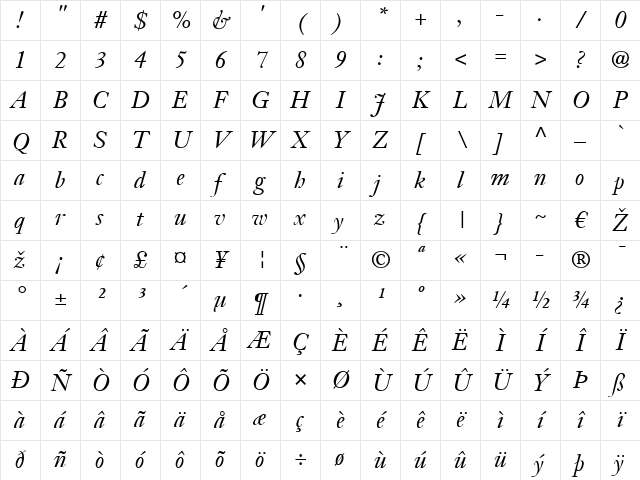
JansonText LT Italic
Complete JansonText LT Italic glyph index. Displaying only characters natively supported by JansonText LT Italic font.
Design Context for JansonText LT
JansonText LT is a composed and adaptable typeface that performs quietly and consistently across a wide range of design contexts. The slanted form adds forward momentum and visual energy. Its slender proportions lend an understated elegance to any composition.
Pro Tip: Use JansonText LT for emphasis, pull quotes, and subheadings where its slanted energy can add rhythm to the layout.